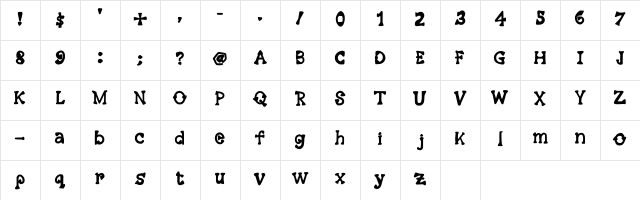
Mosaic Serif Regular
Design Context for Mosaic Serif Typeface
Mosaic Serif brings classic typographic sensibility to the table — its serifs and measured letterforms reflect centuries of print heritage.
Pro Tip: Set Mosaic Serif with slightly loose tracking in headlines to let each letterform's detail read clearly at display sizes.